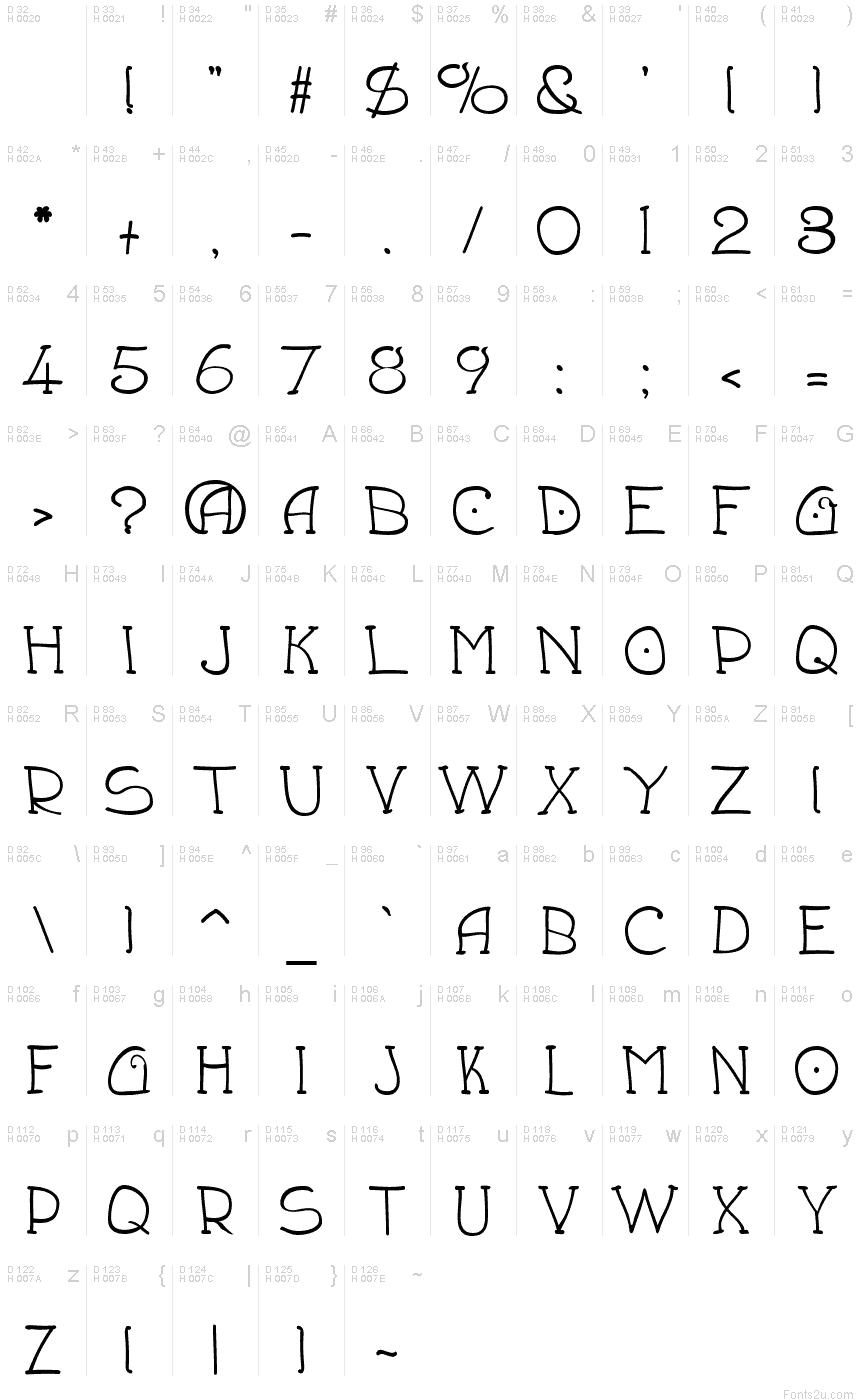
Draughtsman
Draughtsman font by PJL has a loose, upright handwritten look with tall narrow letters and soft, rounded curves. The slightly wobbly strokes feel like marker lines on paper, giving text a friendly, informal tone. This free font works best at larger sizes where its playful quirks are easy to appreciate.
Use Draughtsman for comic-style titles, children's book covers, illustrated maps, casual branding, invitations, packaging, or social media graphics that need personality without losing legibility. The open spacing keeps words readable even in busy layouts. This free font pairs well with a clean sans serif for supporting captions or longer text blocks.